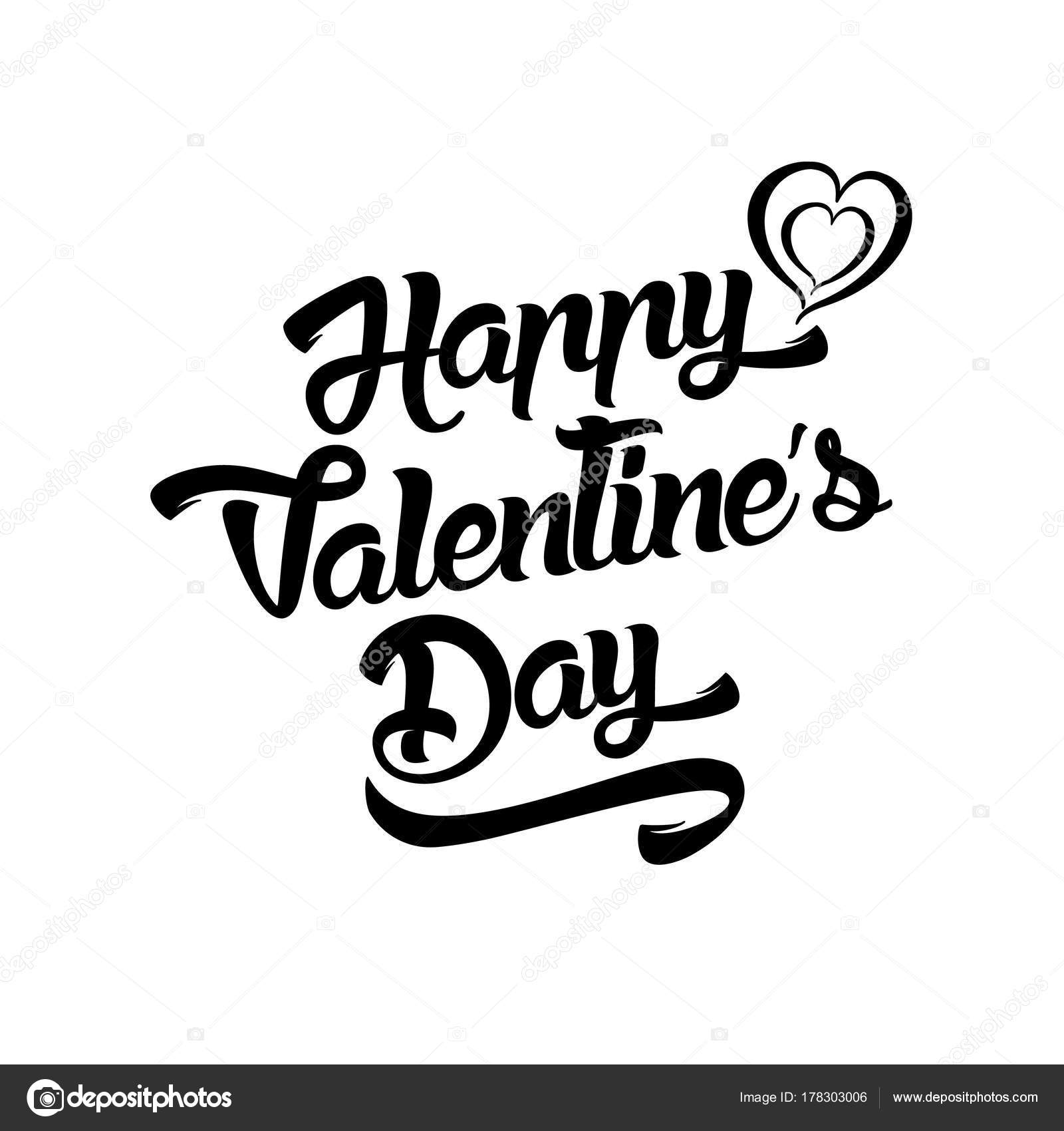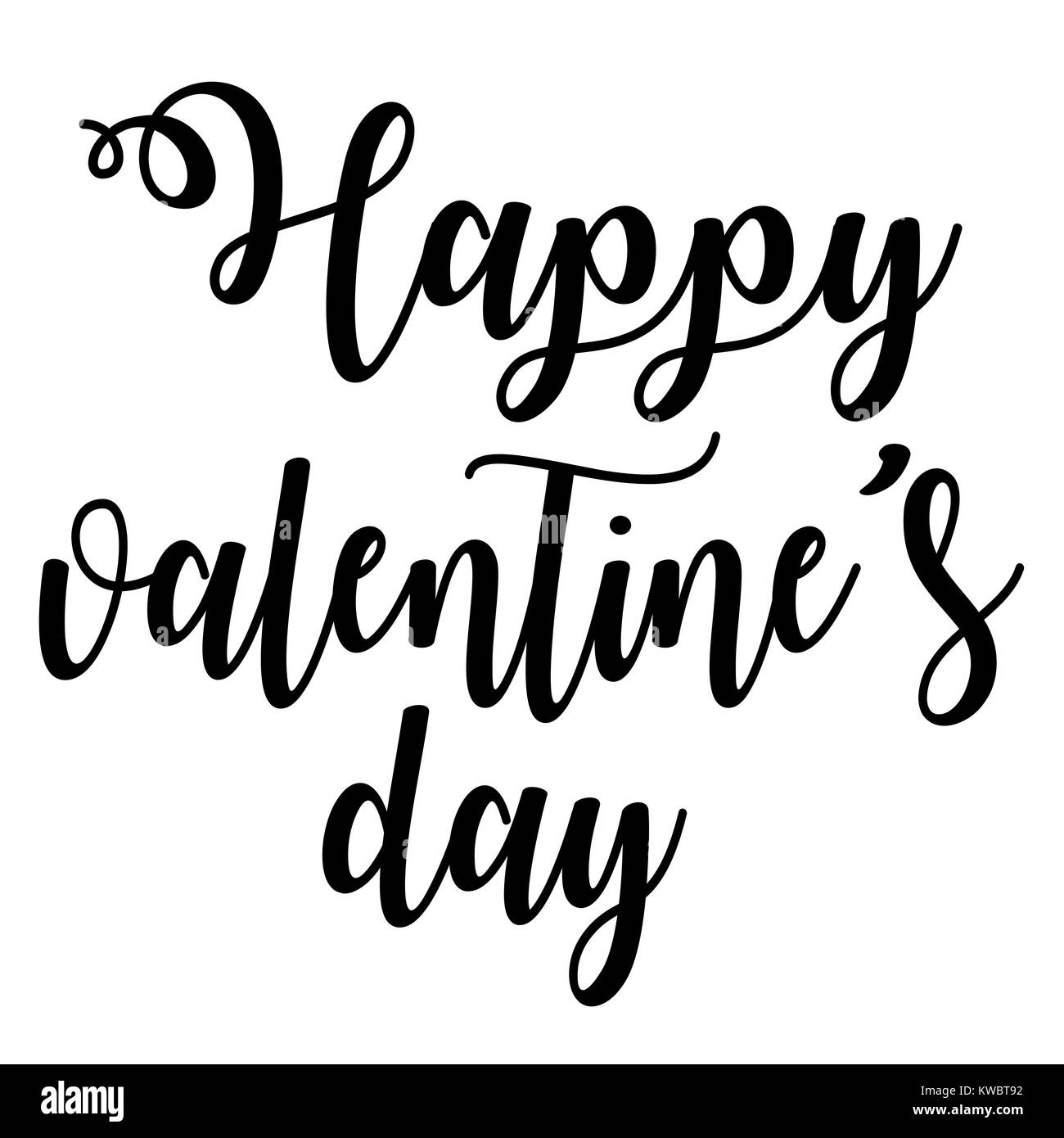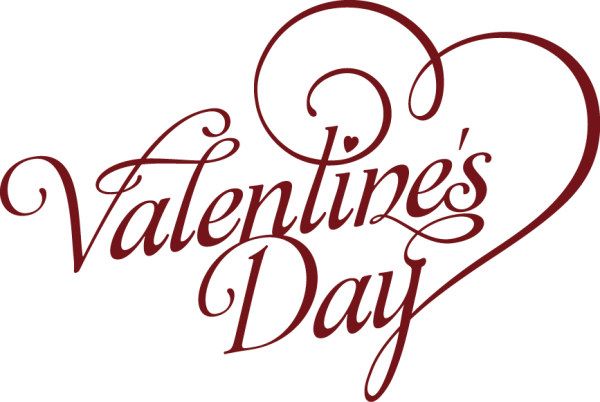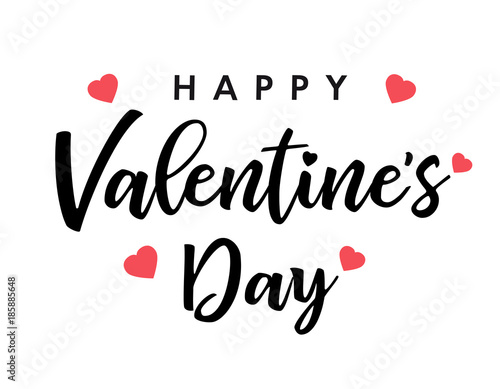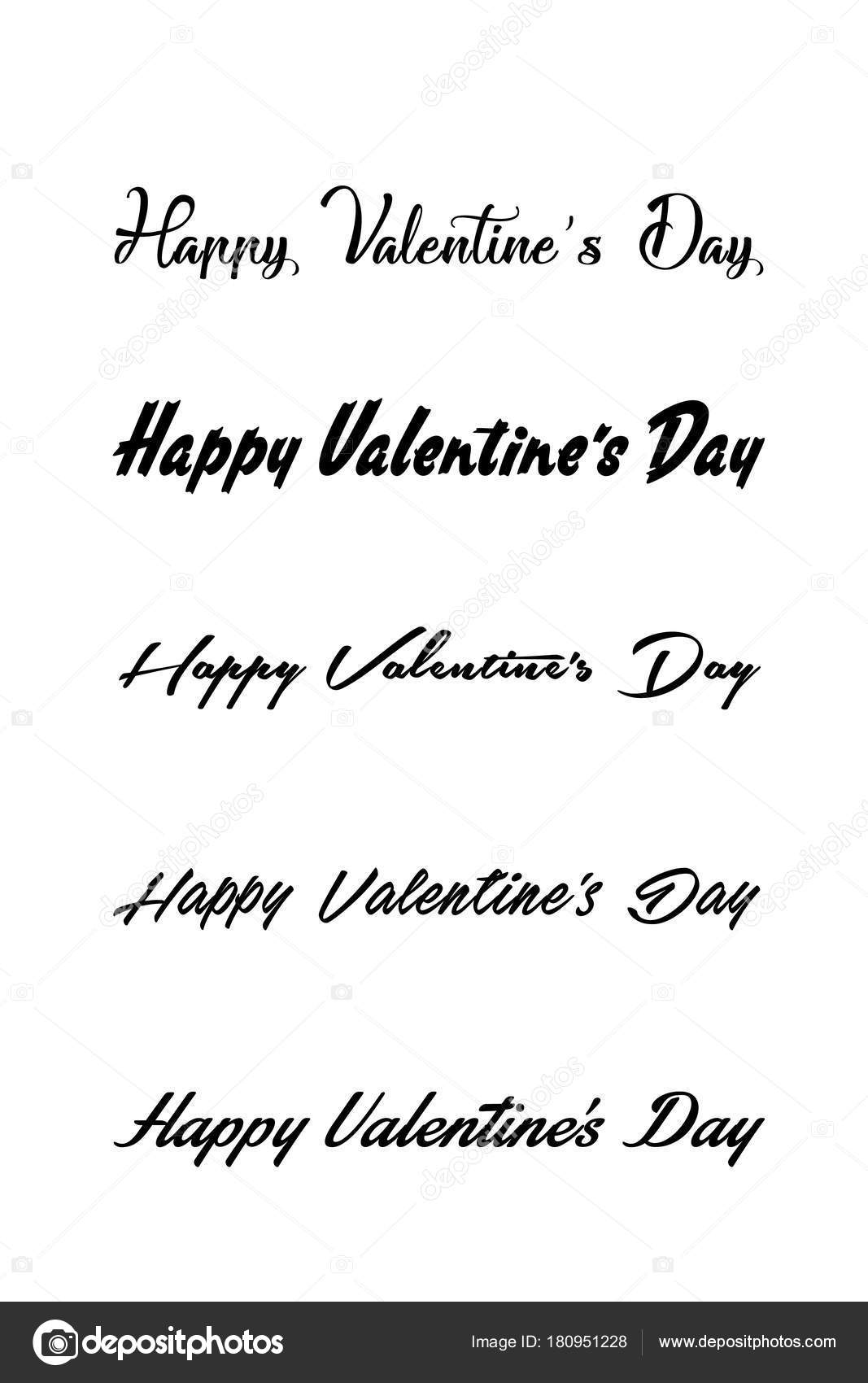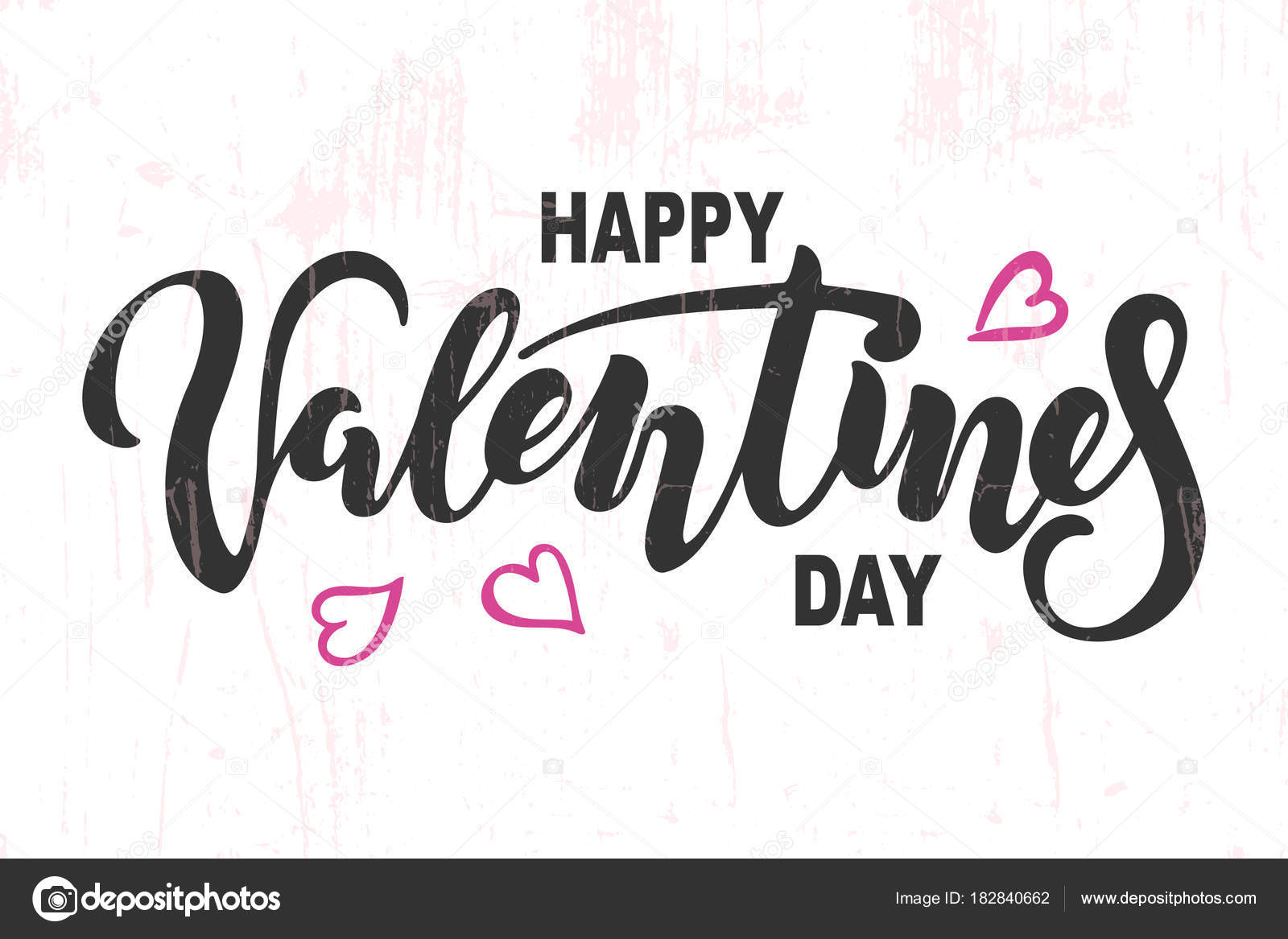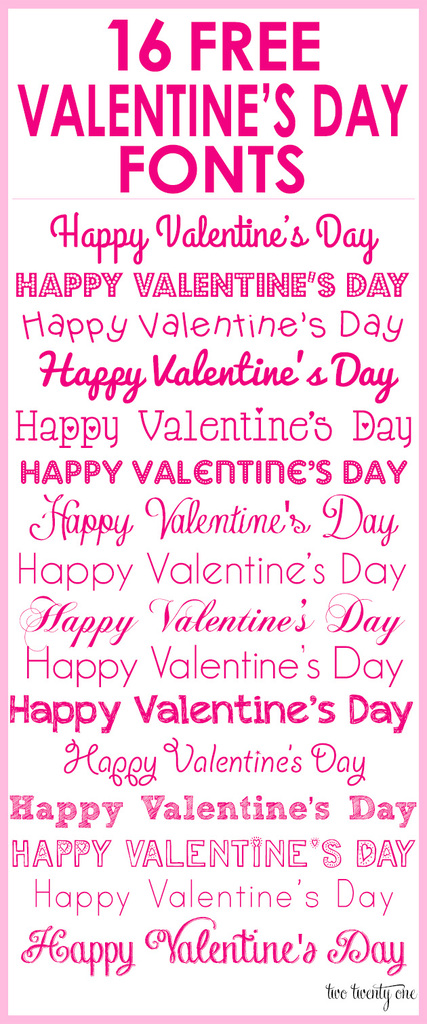
Here are 14 Free Valentine Fonts for you to enjoy. Love is in the air with these romantic fonts.
14 Free Valentines Day Fonts. Hello Valentine à by Yoga Letter. LOVE LETTERS a decorative Valentines Day font A typographic font hand lettered with love by Dixie Type Co.
Our most sentimental fonts perfect for your messages of love and dedications for St. Sort by More options Hearts ST by Southype 91166 downloads 57 yesterday Free for personal use. Mugs and Coffee Tumblers Using these free Valentines Day fonts you can print and trace the styles and use a Sharpie onto an inexpensive blank mug or use a paint pen on a blank.
This font is partial and free for personal use. A simple font but the little heart over the i makes it special. 67231 downloads 77 yesterday Demo.
Cloud Nine Font Heart cutouts make this adorable font. Use the sweetheart font for the blocks 1 Fiolex Girls 2 Rosewood STD 3 Vanessas Valentine 4 I Love What You Do 5 Loveness Two 6 Love Letters 7 Janda Swirly Twirly 8 Loki Cola 9 Forget Me Not 10 Love You Too 11 MC Sweetie Hearts 12 Respective 13 MTF Heart Doodles. Hi Valentine Font A fun handwritten font the Hi Valentine font includes heart and dot accents.
Lover Loves by aminmario. A thin loopy font that is perfect for all sorts of Valentines Day projects. But I do have quite the collection.
More fonts made by levincreative. Cupid Adoring. Love Letters by StimulEye Fonts.
Valentines Day Project Ideas with Free Fonts. This font was made specifically for your ValentinesWedding projects. No hassle no fuss find thousands of high quality free fonts on Fontsc.
Download links can be found below. A chunkier script font that is modern and fun. Free for personal use - 4 font files.
Love fonts for Valentines Day. Love Letters - Pizzadude. If you have a cutting machine or not you can create a sweet little t-shirt for those you love.
Be Mine Flying High. Valentines Day is celebrated each year on February 14. Be Mine Font With this font you get a solid version and an outline version and both have cute hearts on the tops of the letters.
Valentine Fonts - Page 1 of 13. Loveya Doodle by Font Bundles. Lots of hearts and calligraphy are perfect for that special card or gift.
We have 454 free Valentines-day Fonts to offer for direct downloading 1001 Fonts is your favorite site for free fonts since 2001. Valentines Day Font This is a pretty ornated font with a Valentines Day theme. Love Story Font This font is a nice combination of a calligraphy font and a handwritten font.